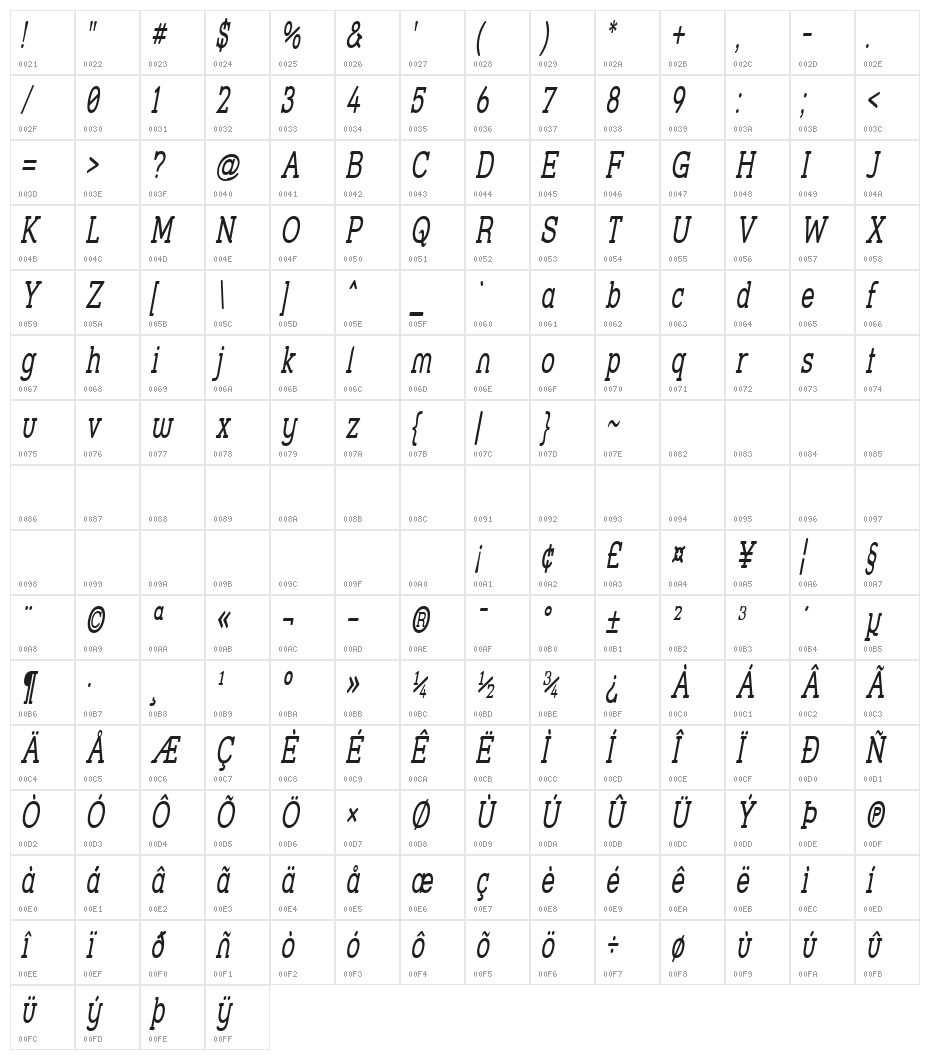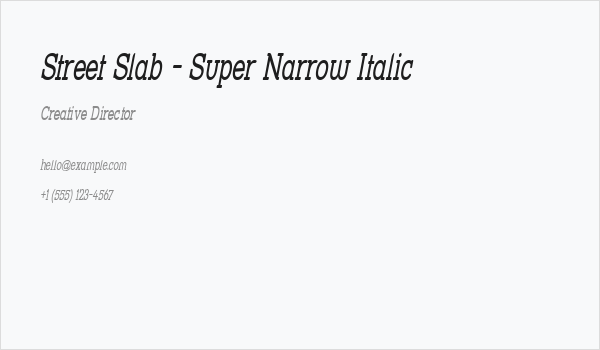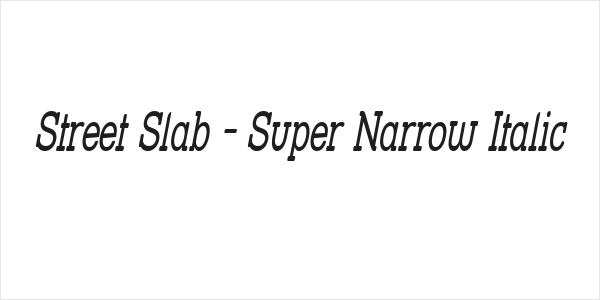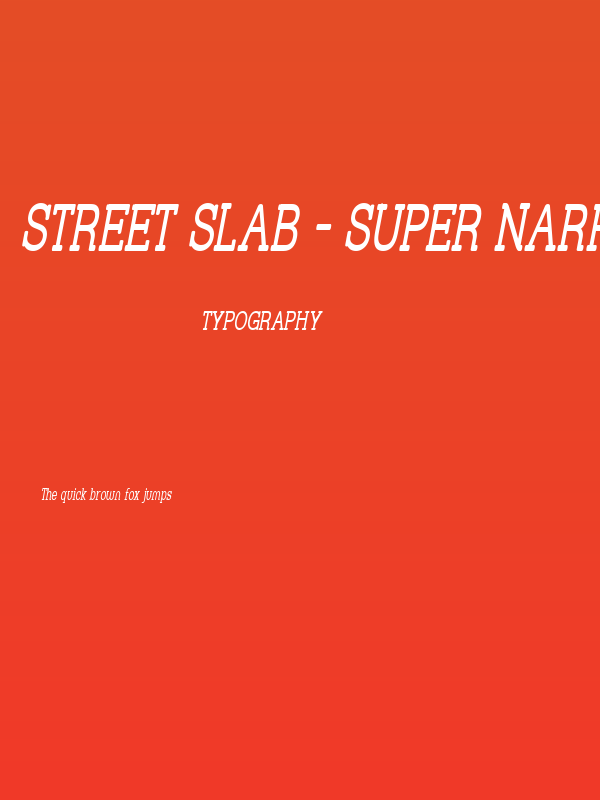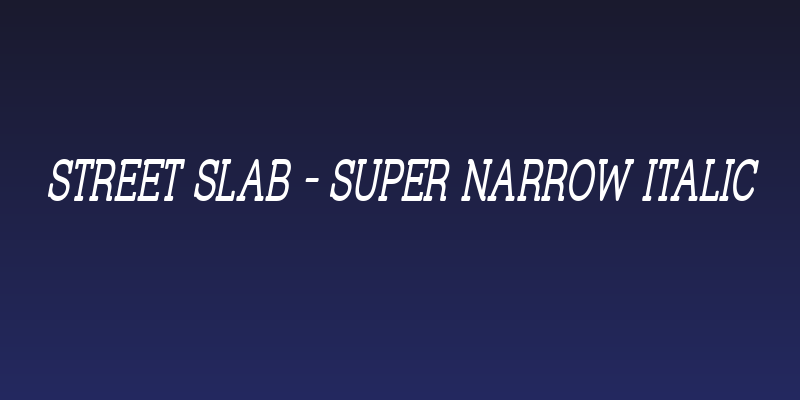
Street Slab - Super Narrow Italic Font
Street Slab - Super Narrow Italic Description
This font features a distinct italic style with a narrow width, giving it a sleek and modern appearance. The characters are elongated and slightly slanted, creating a dynamic flow across the text. The strokes are consistent in weight, providing a uniform look that enhances readability. The font includes a full set of uppercase and lowercase letters, numerals, and a variety of special characters, making it versatile for different design needs. Its slab serif elements add a touch of robustness, while the narrow form factor ensures it remains space-efficient.
| Use Case | Headlines, Logos, Editorial Design |
| Proposed Projects | Ideal for branding, editorial design, and advertising where a modern and stylish look is desired. |